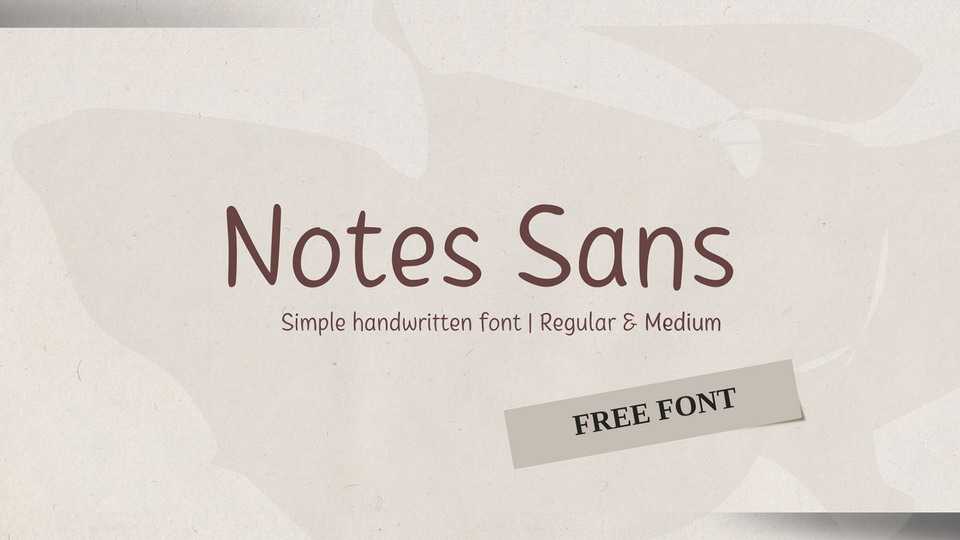
Download Notes Sans font, a simple and heartwarming hand drawn typeface. Notes Sans is perfect for writing out uplifting quotes for Instagram posts, wall art or greeting cards.
Designer: Klefont